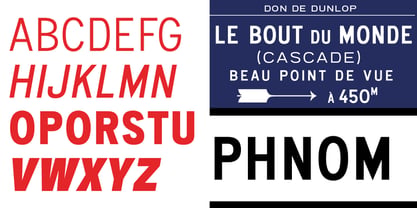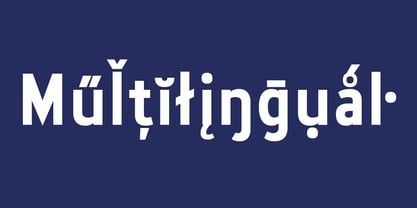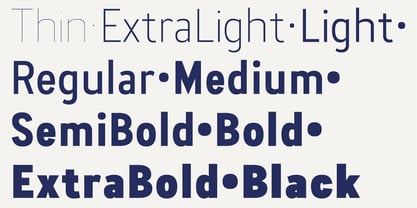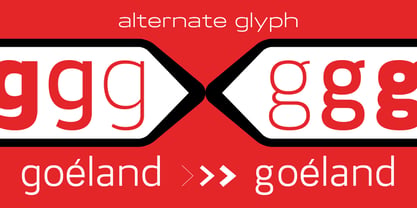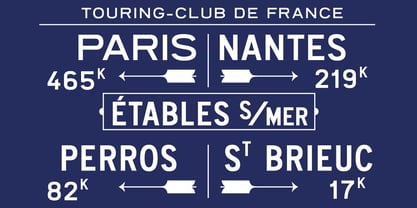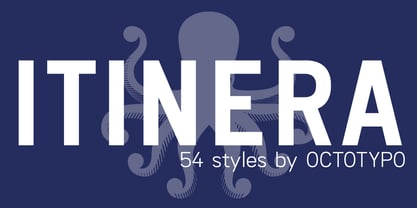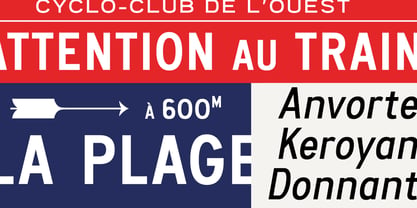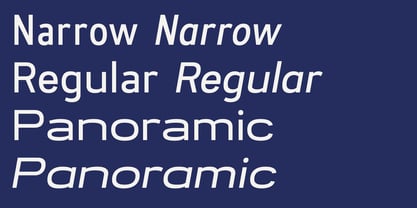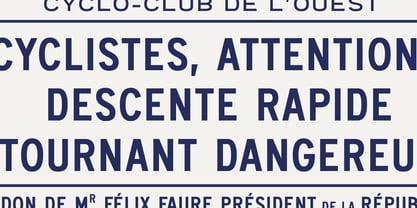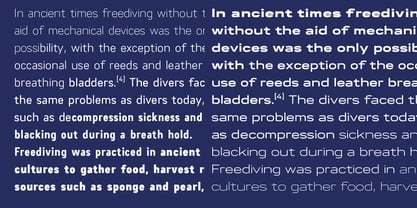
Itinera Variable
by Octotypo
The Itinera Variable Font Family was designed by Julien Janiszewski and published by Octotypo. Itinera Variable contains 2 styles and family package options. More about this family
Itinera is inspired by the timeless aesthetic of vintage French road signage, where clarity and efficiency were essential. Its design blends geometric principles with subtle humanist touches to ensure excellent readability at both close and long distances. The family offers Regular, Narrow and Wide styles, and its italics counterparts, allowing fluid adaptation from running text to impactful wayfinding systems. Consistent stroke modulation, open counters and balanced spacing create a stable rhythm, while the overall structure preserves the confident, quietly authoritative tone of classic directional typography. Ideal for signage, editorial uses and modern identity systems seeking functional elegance and timeless and contemporary design.
This typeface takes its cues from classic French road signage, combining geometric precision with gentle curves to maximise clarity. Designed for both text and wayfinding, it maintains strong legibility at various distances thanks to open shapes, balanced spacing and a stable rhythm. Offered in Regular, Narrow and Wide styles, it adapts easily from dense layouts to bold directional uses. Its clean structure and calm authority echo traditional signage while providing a contemporary, highly functional voice for modern visual systems.